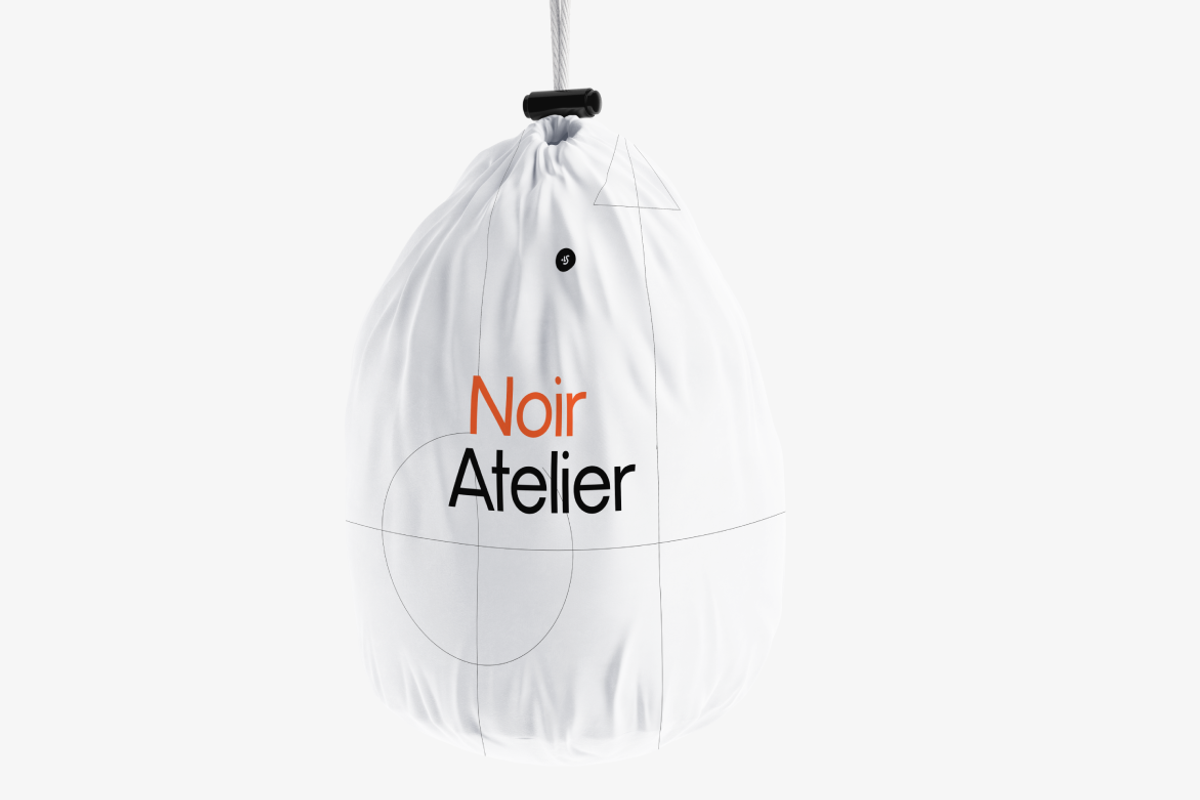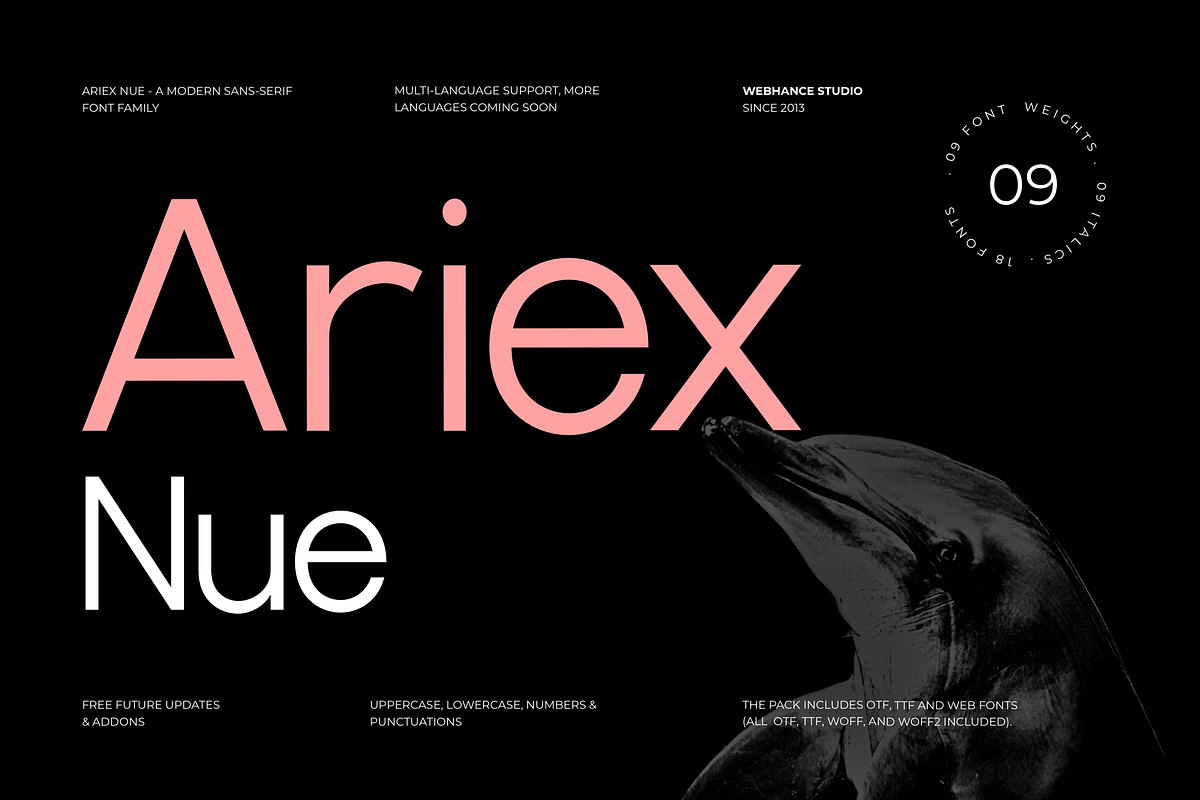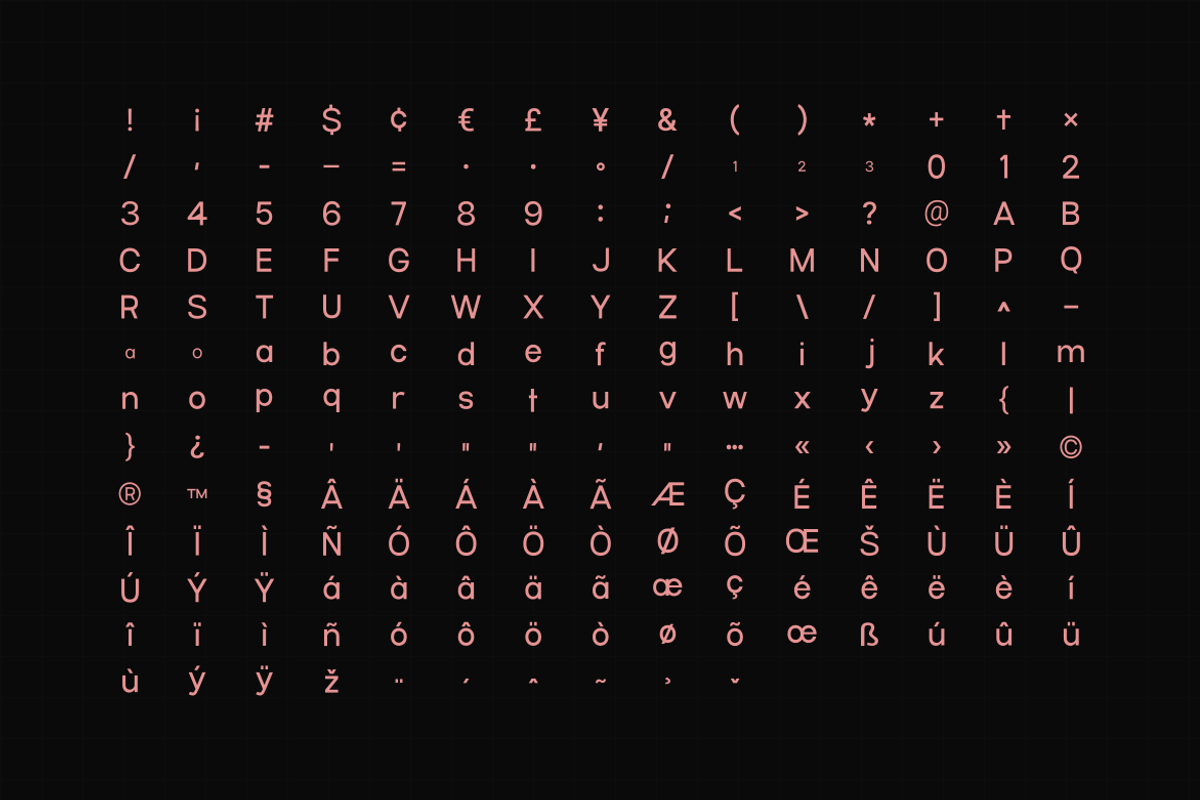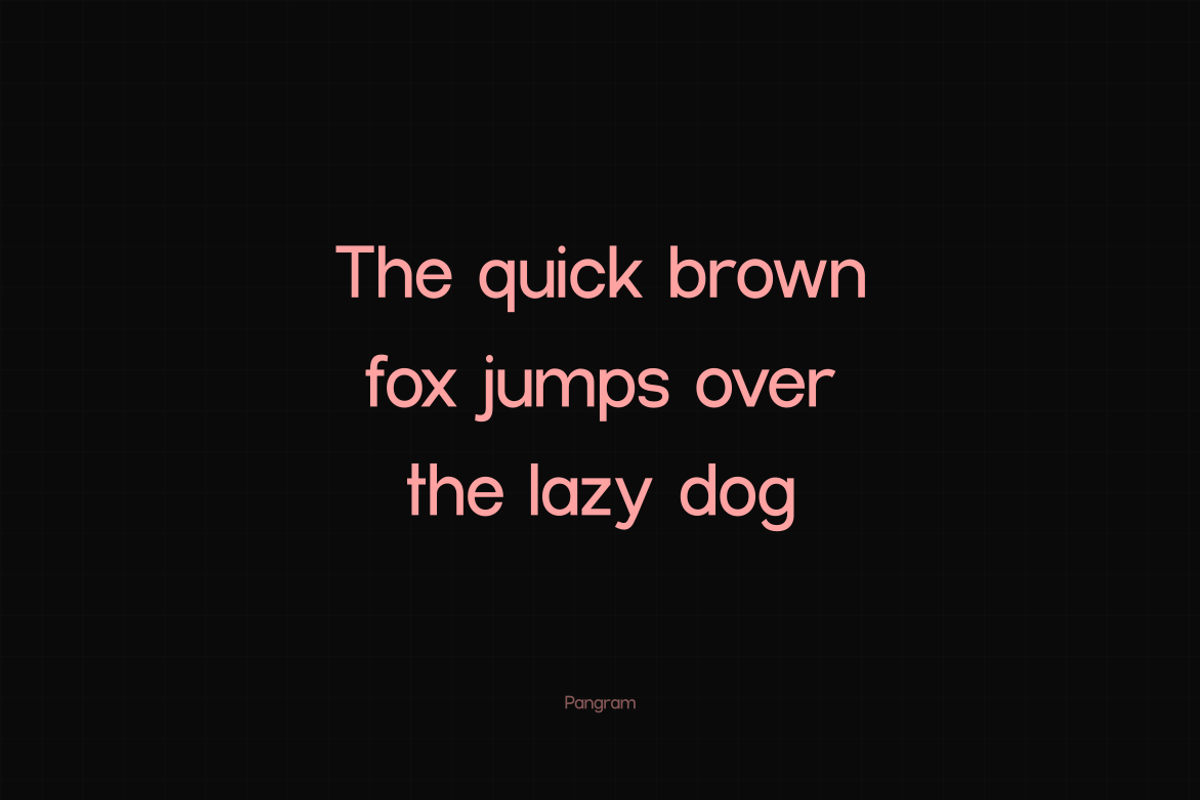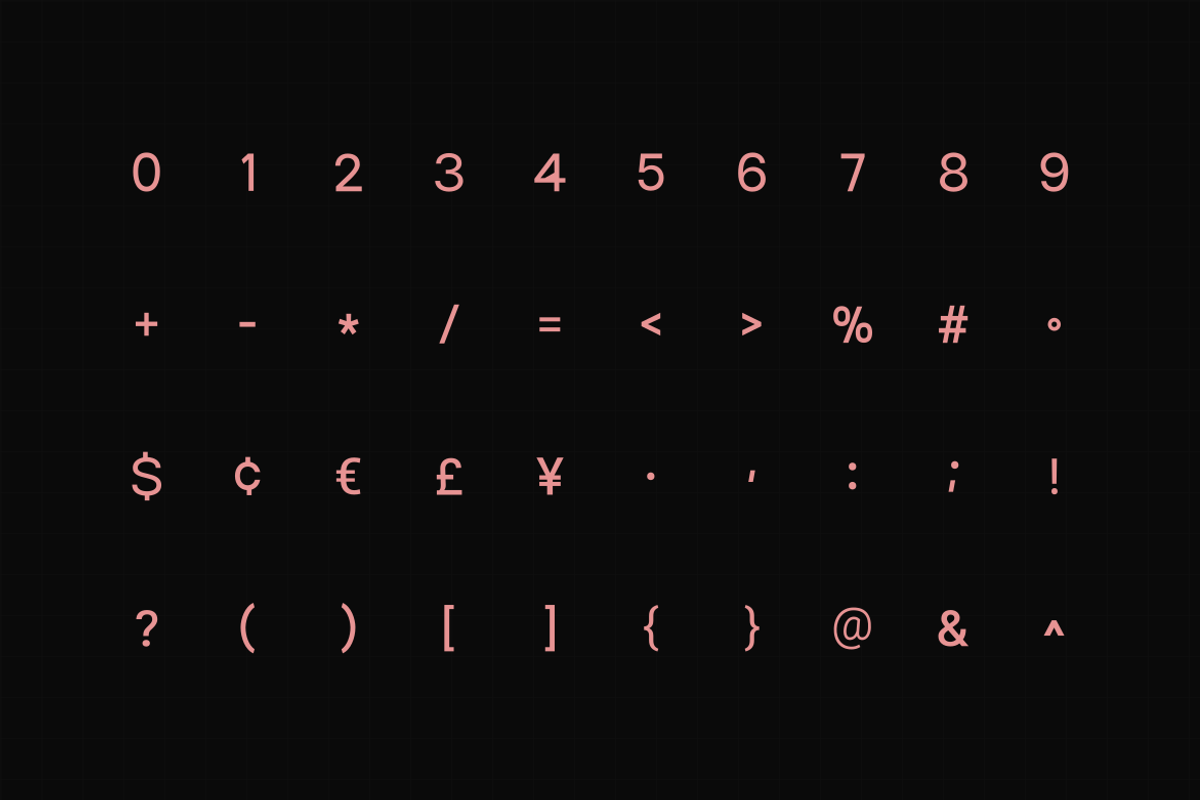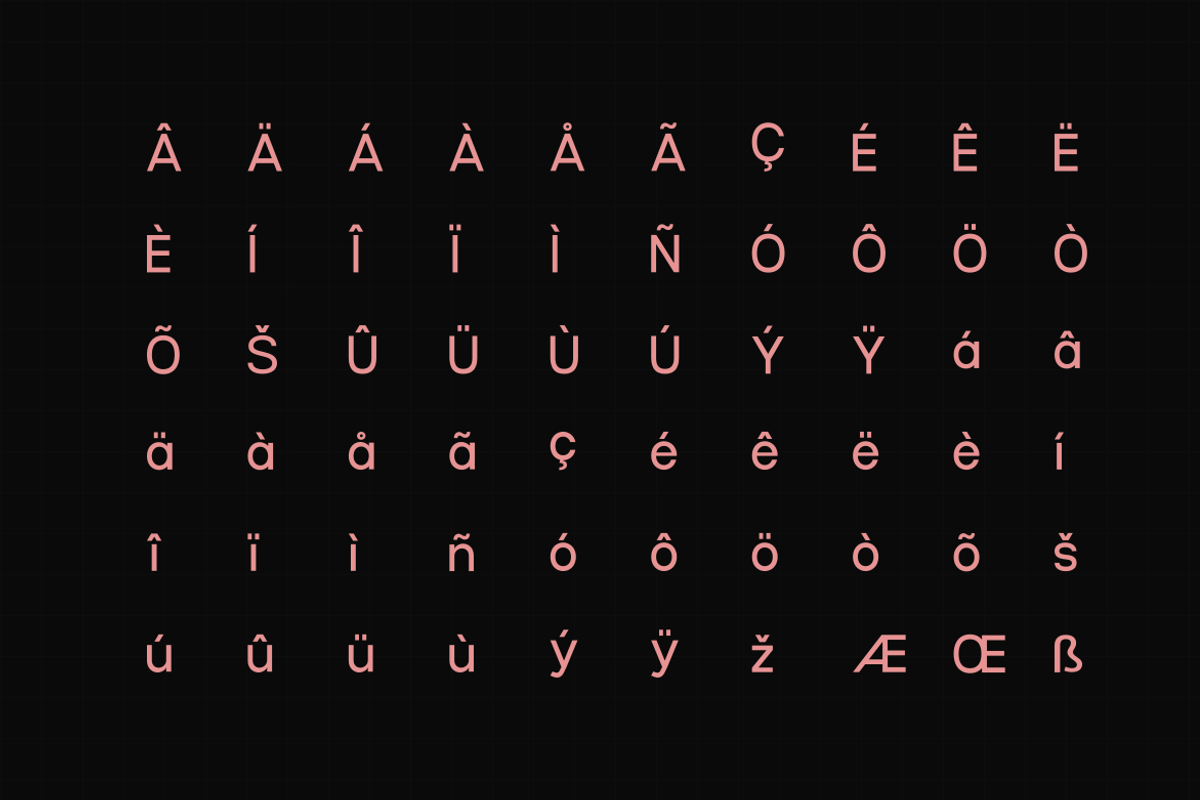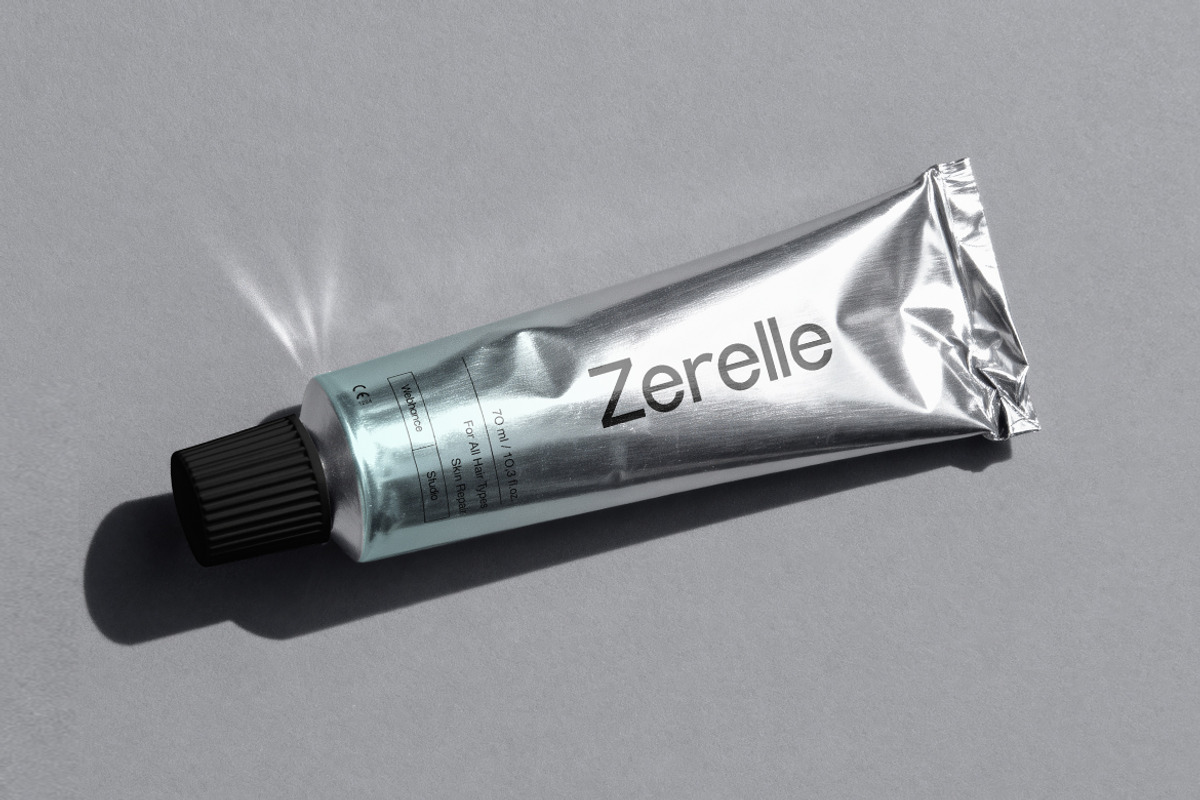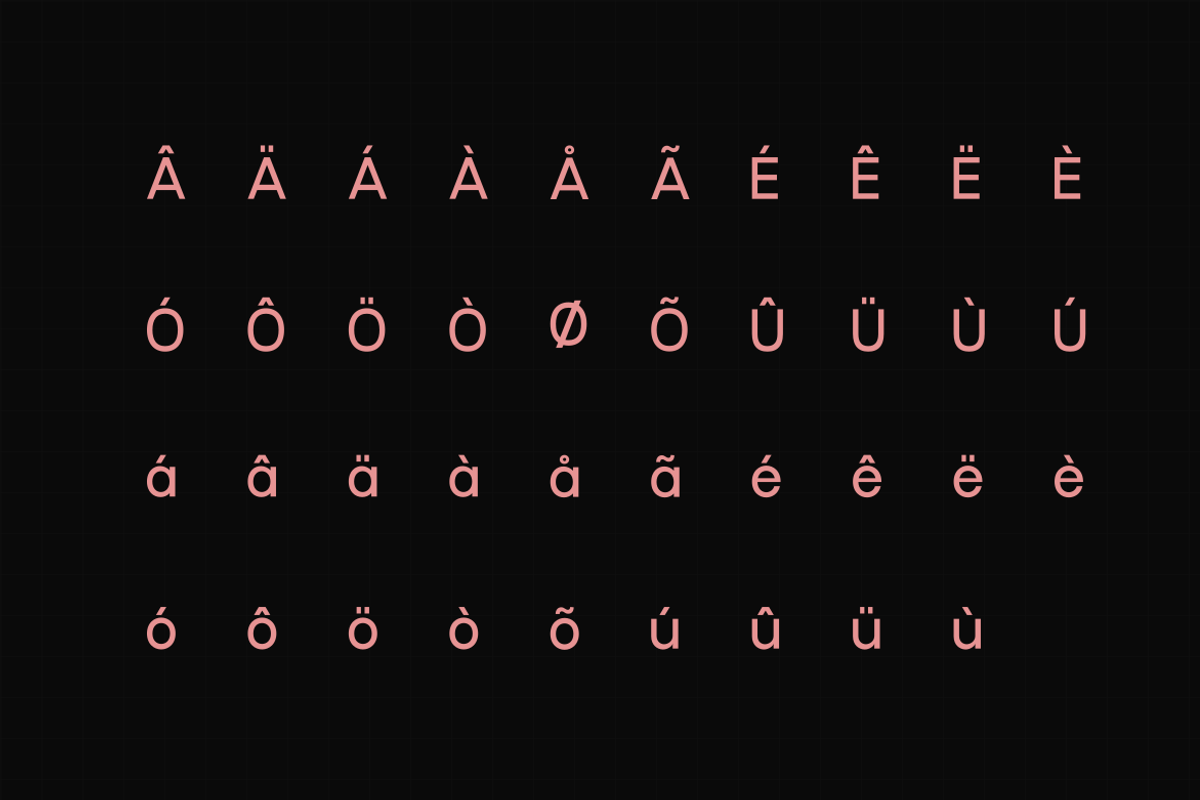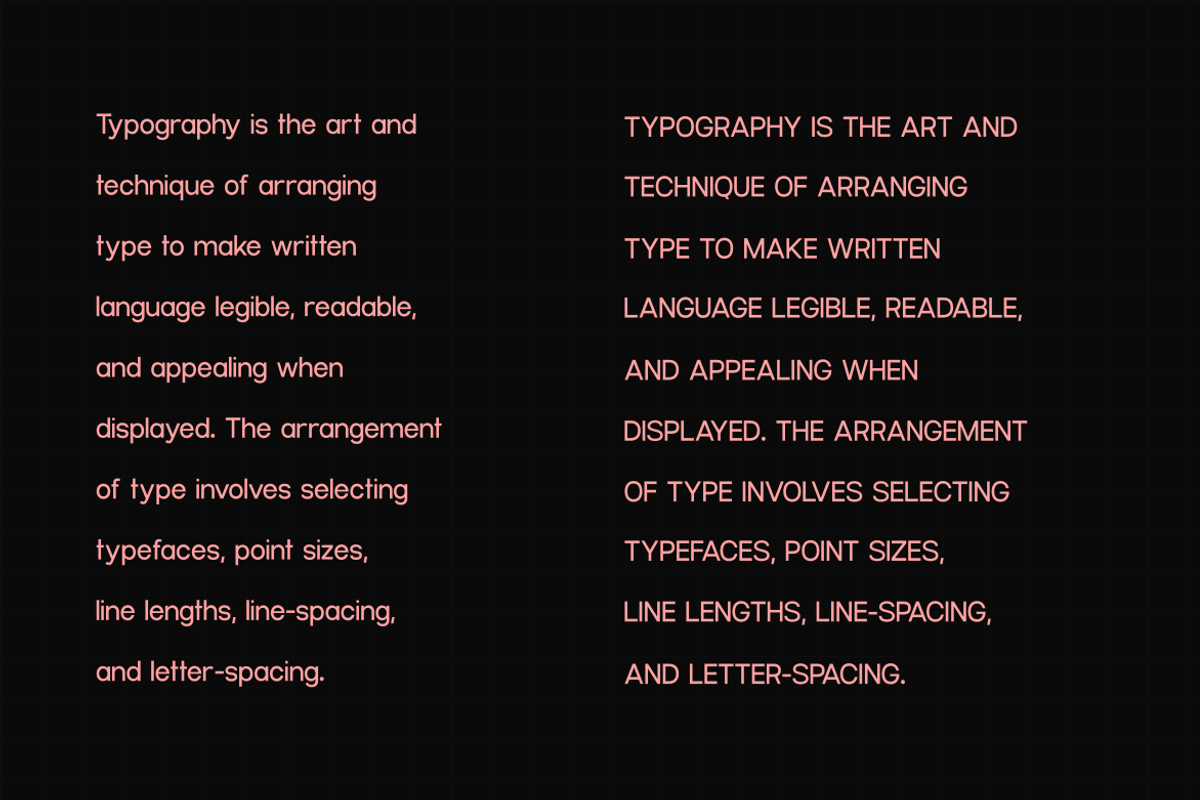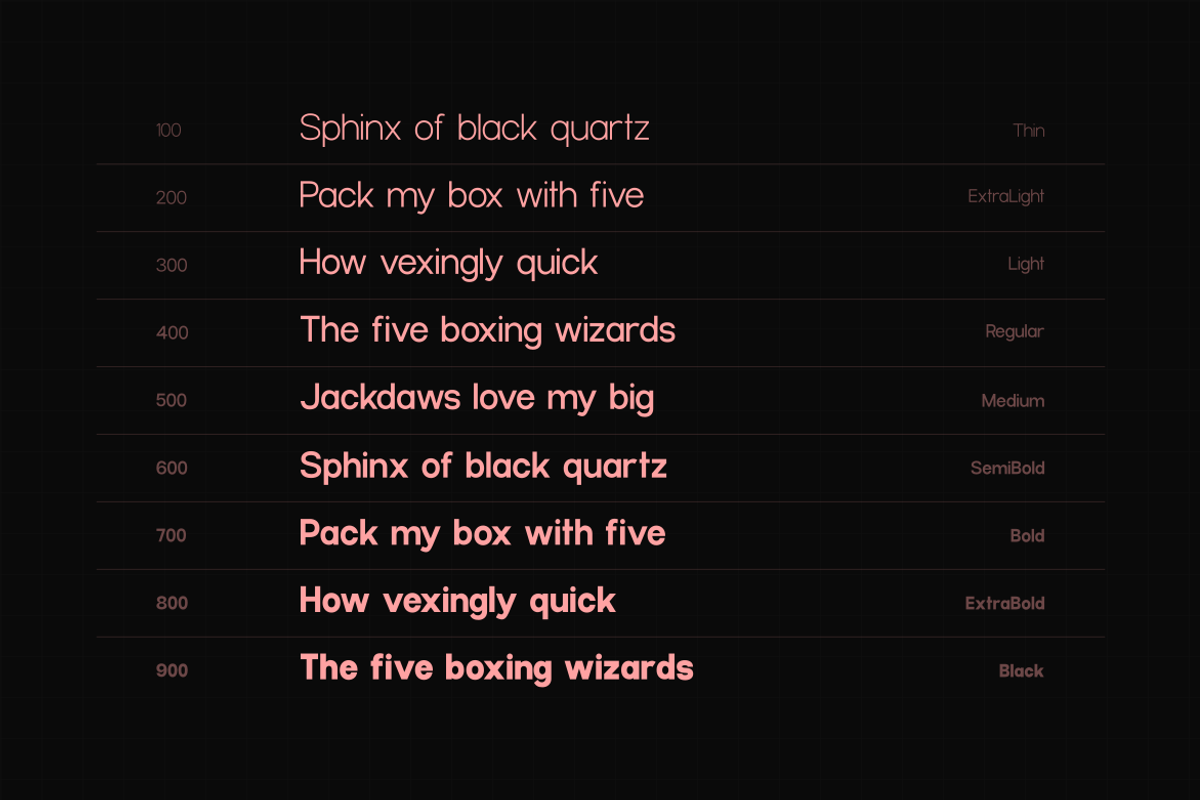
Ariex Nue - A Minimal Sans-serif
Ariex Nue - A Modern Sans-Serif Font Family
Ariex Nue is a contemporary sans-serif font family designed for clarity, structure, and visual balance. With its clean lines and minimal form, it delivers a confident and professional look across all types of design work.
The family comes with 9 versatile weights, from Thin to Heavy, along with perfectly matched italics — giving you a total of 18 carefully crafted fonts. Each weight is built with consistent proportions and spacing to ensure harmony across headlines, body text, and large-scale layouts.
Ariex Nue works beautifully for branding, logos, editorial design, websites, posters, packaging, social media graphics, video titles, YouTube thumbnails, and digital content. It is optimized for both print and screen, maintaining sharp readability and a polished appearance in every setting.
Specification
- Multilingual Font
- Uppercase letters
- Lowercase letters
- 09 Weights
- 09 Italics
- 18 Fonts Included
- 200+ Glyphs
- Punctuations